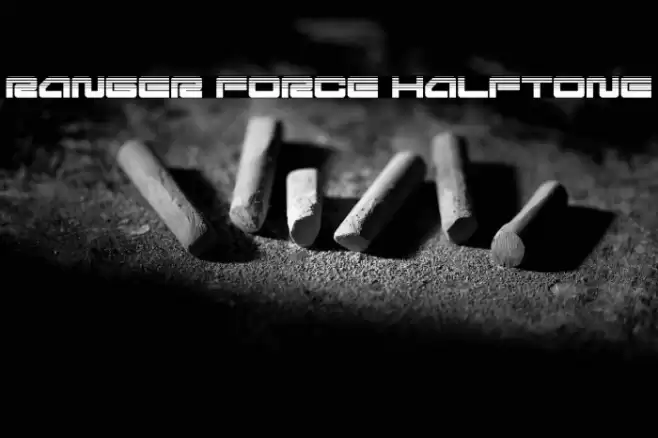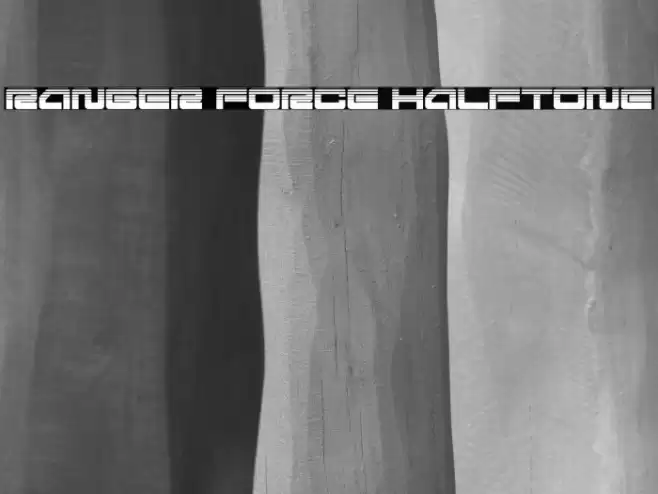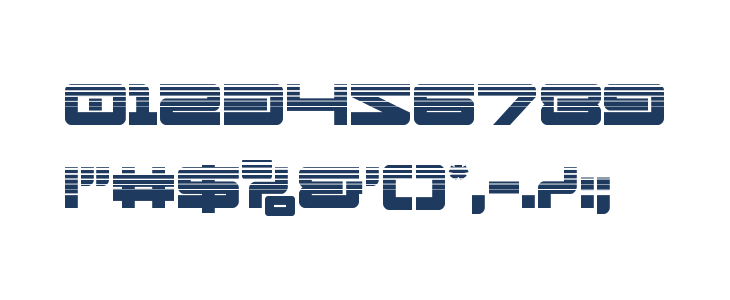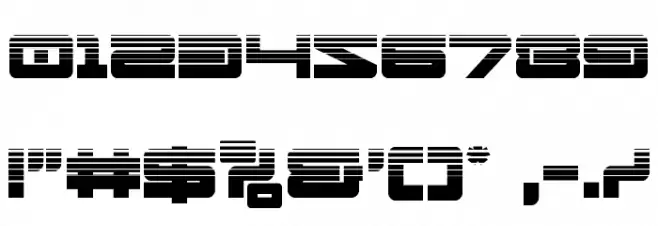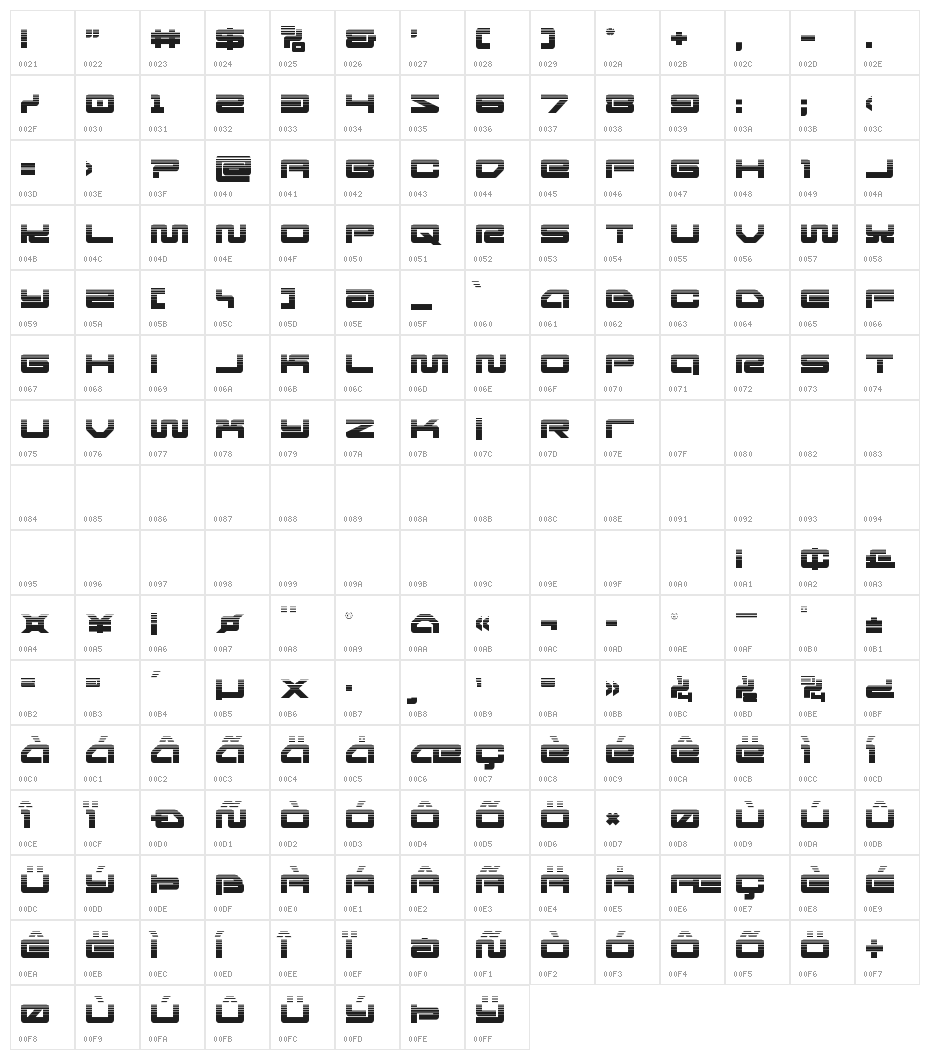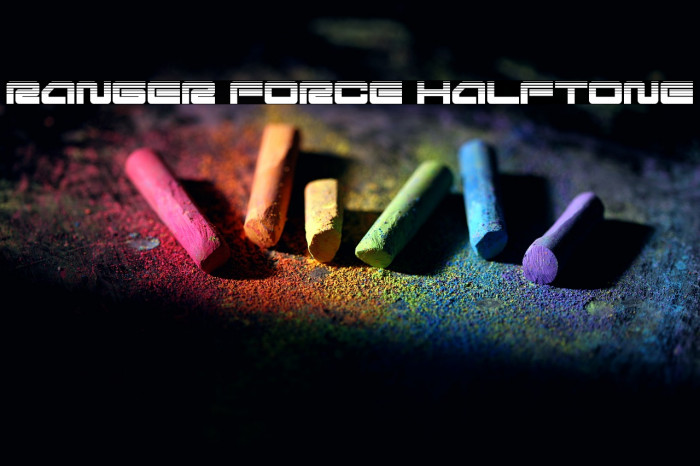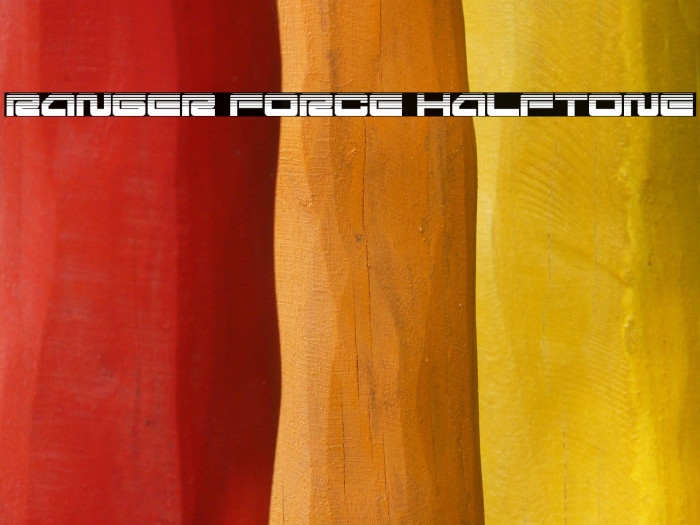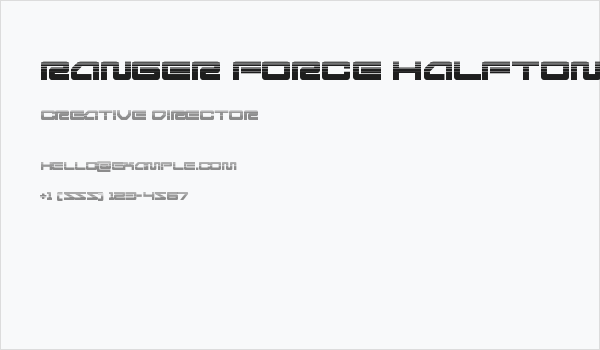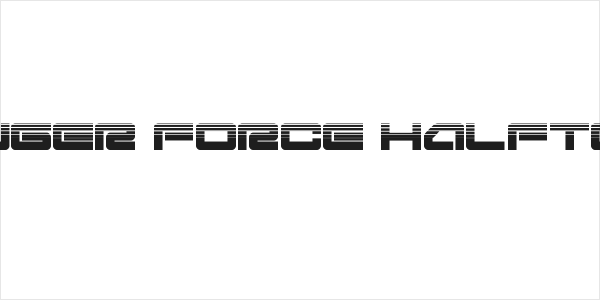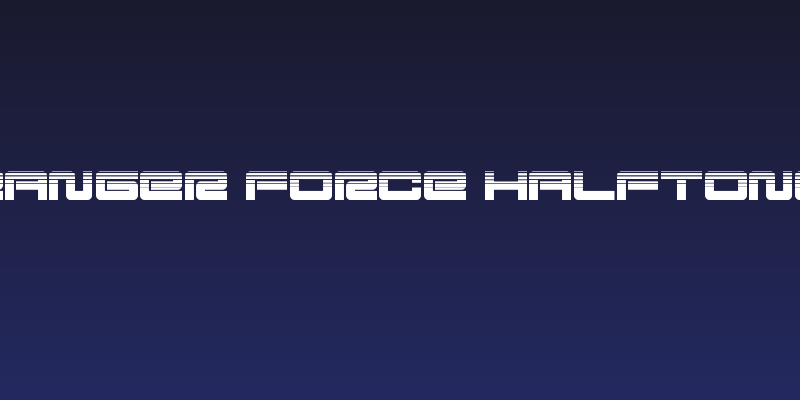
Ranger Force Halftone Font
Ranger Force Halftone Description
This font features a bold, futuristic design with a distinct halftone effect. Each character is constructed with horizontal lines that create a sense of movement and depth. The uppercase and lowercase letters maintain a consistent geometric structure, enhancing readability while adding a modern, tech-inspired aesthetic. The numbers and special characters follow the same design principles, ensuring uniformity across all glyphs. This font's unique style makes it ideal for projects that require a strong visual impact.
A bold, futuristic font with a halftone effect and geometric structure from Uncategorized fonts.
- Font: Ranger Force Halftone
- Proposed Projects: Ideal for sci-fi themed designs, tech branding, video game titles, and futuristic posters.
- Overall Style: Futuristic